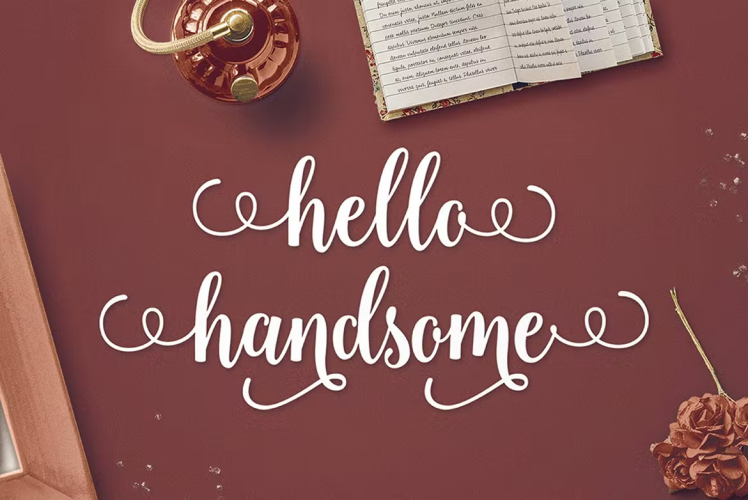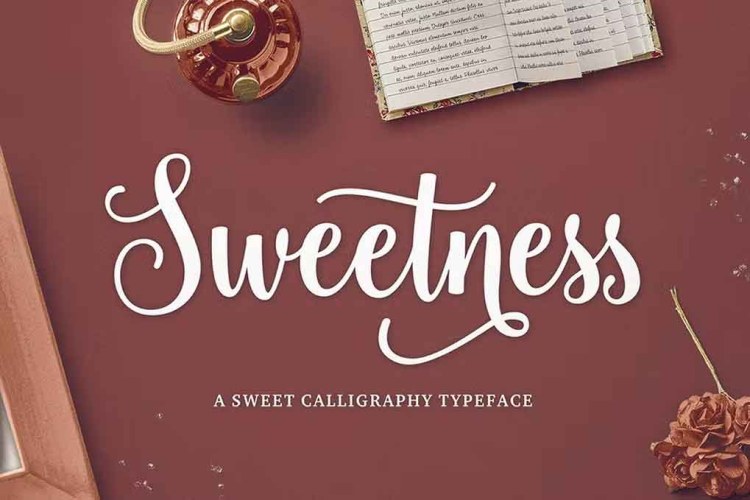
Sweetness Script Font
Sweetness Script is soft and sweet calligraphy typeface, with characters dance along the baseline. It has a casual and elegant touch. Can be used for various purposes.su…
Sweetness Script is soft and sweet calligraphy typeface, with characters dance along the baseline. It has a casual and elegant touch. Can be used for various purposes.such as logos, wedding invitation, heading, t-shirt, letterhead, signage, lable, news, posters, badges etc. OpenType features with stylistic alternates, ligatures and multiple language support. To enable the OpenType Stylistic alternates, you need a program that supports OpenType features such as Adobe Illustrator CS, Adobe Indesign & CorelDraw X6-X7, Microsoft Word 2010 or later versions. Also supported PUA encoded. Access font characters are compatible with the Silhouette Studio, Cricut Design Space. Simply copy and paste the alternate characters using the Character Map (Windows), Nexus Font (Windows), Font Book (Mac) or a software program such as PopChar (for Windows and Mac).
Where Sweetness Script Font works best
A short phrase in Sweetness Script Font carries warmth that a typeset sans cannot fake; keep the rest of the card plain.
Chalkboard-style headings in Sweetness Script Font make a menu feel hand-made. Keep the dish descriptions in a simple face so prices stay readable.
One line of Sweetness Script Font over a photo is enough; the script carries the tone and the caption does the work.
What kind of work does Sweetness Script Font suit?
It sits in the Script And Handwritten group and reads as branding, calligraphy, elegant, script. That makes it a candidate wherever those qualities help: headings, packaging, social graphics and brand work. Set it at the size you plan to use before deciding.